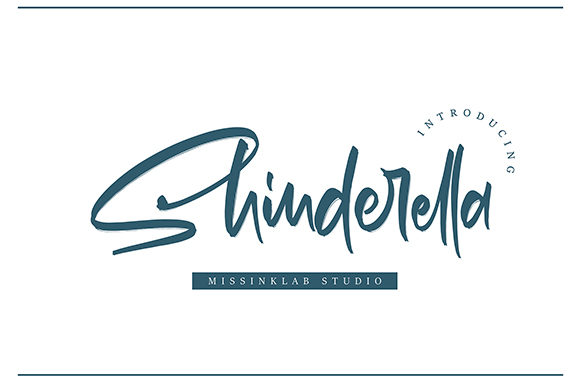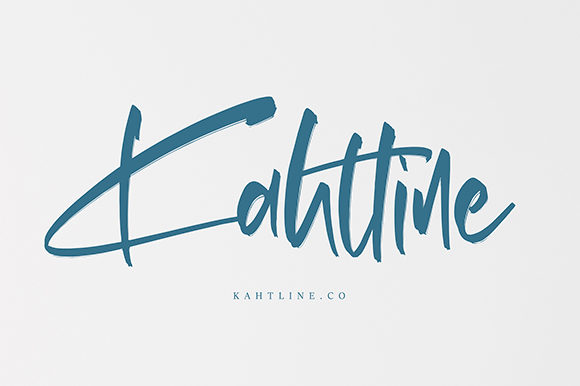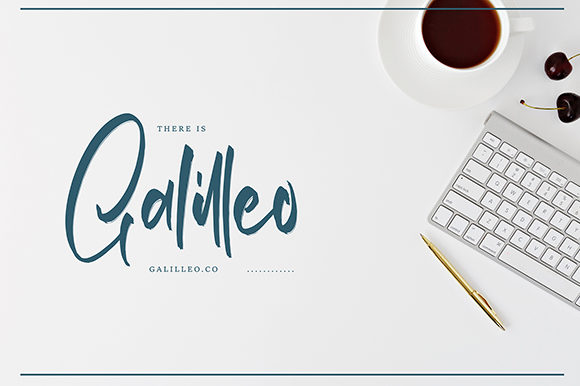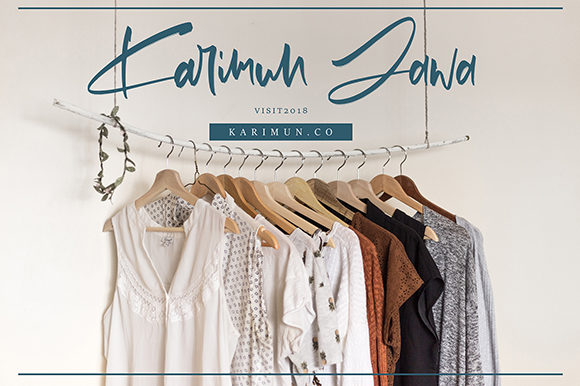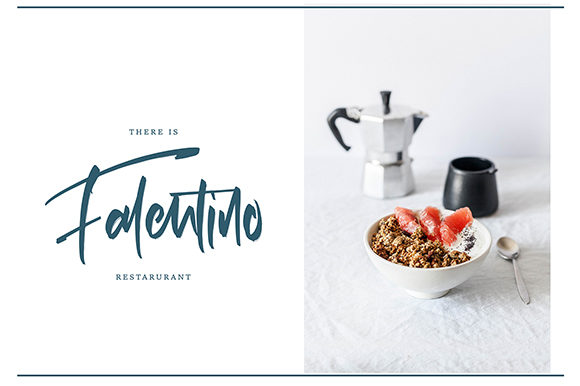
Shinderella Font
About Shinderella Font
Shinderella is a lovely and bold handwritten font with a charming twist. Get inspired by its contemporary appeal.